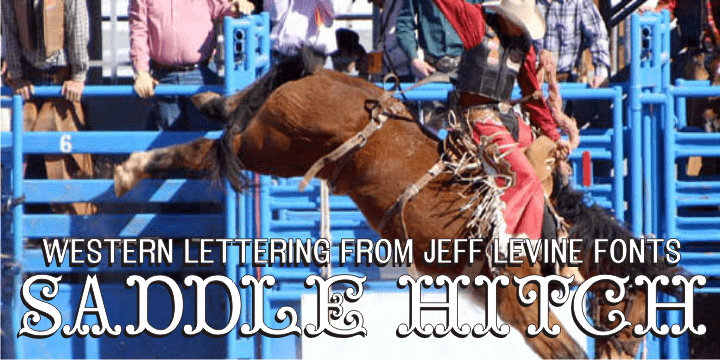
Saddle Hitch
Saddle Hitch JNL is a Western font inspired by a few words set in a decorative typeface from an 1887 publication. The overall look is imperfect, as if hand-painted on a signboard.
Saddle Hitch JNL Regular by Jeff Levine Fonts